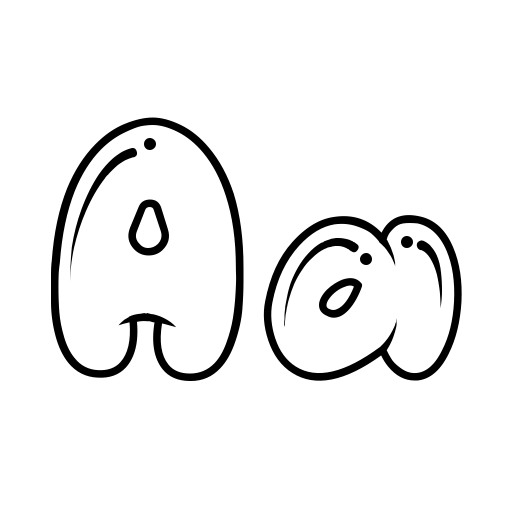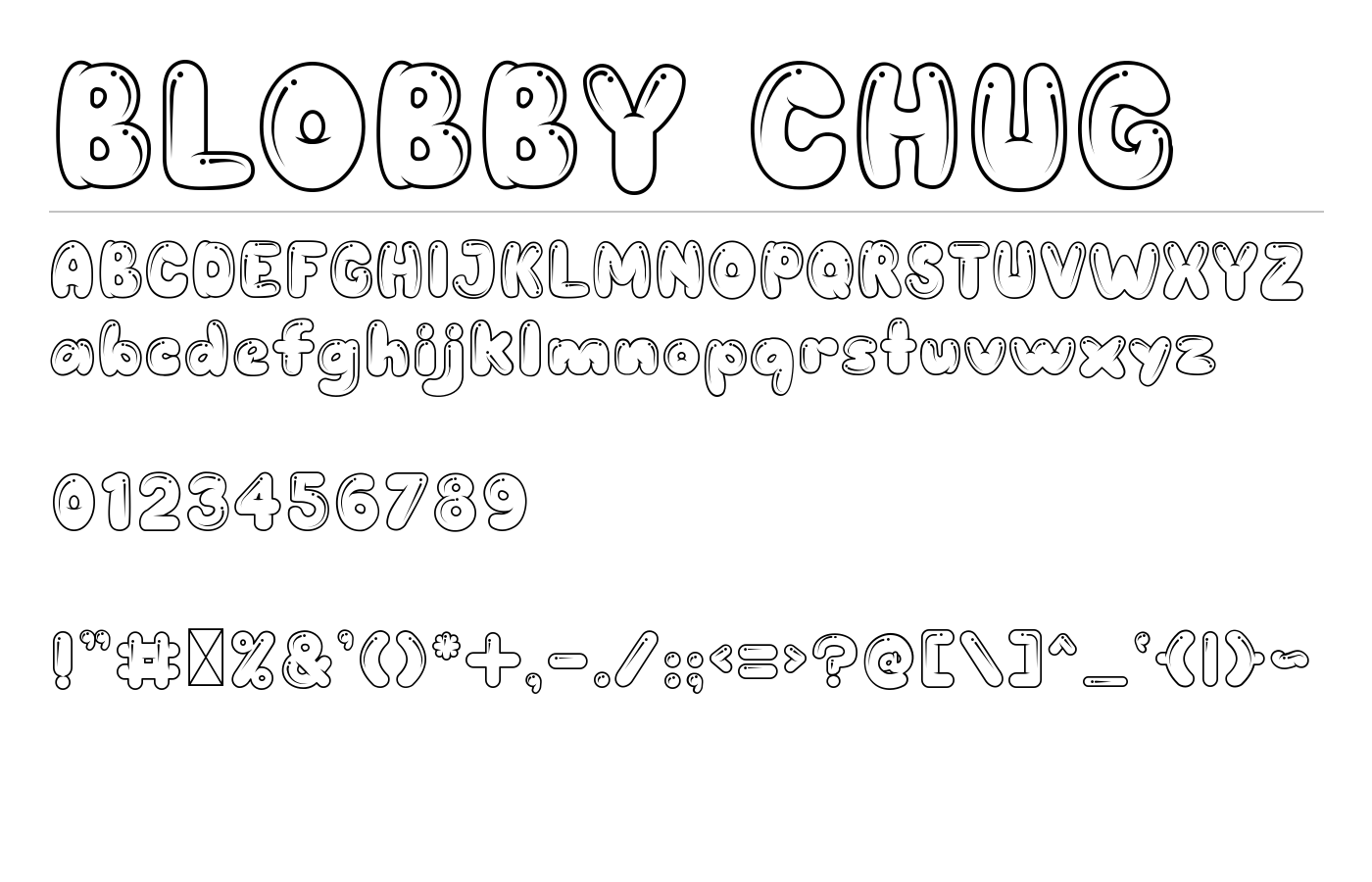
Blobby Chug is a playful, rounded display font featuring soft, bubbly shapes with a casual, hand-drawn feel that brings a sense of fun and approachability. Its thick strokes, irregular outlines, and whimsical details make it perfect for children's designs, party invitations, and any project that wants to convey lightheartedness and creativity. This font works best in large sizes for headlines, logos, and packaging where its friendly character can stand out and capture attention.
BLOBBY CHUG Font